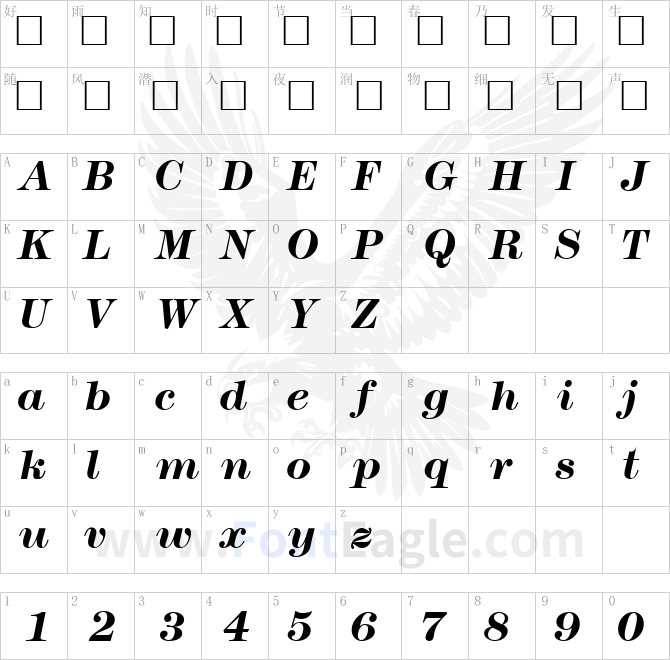
Modern-Bold-Italic is a great font, widely used in graphic design, single-page menu design, poster design and other fields, and is deeply loved by designers.Modern-Bold-Italic download.